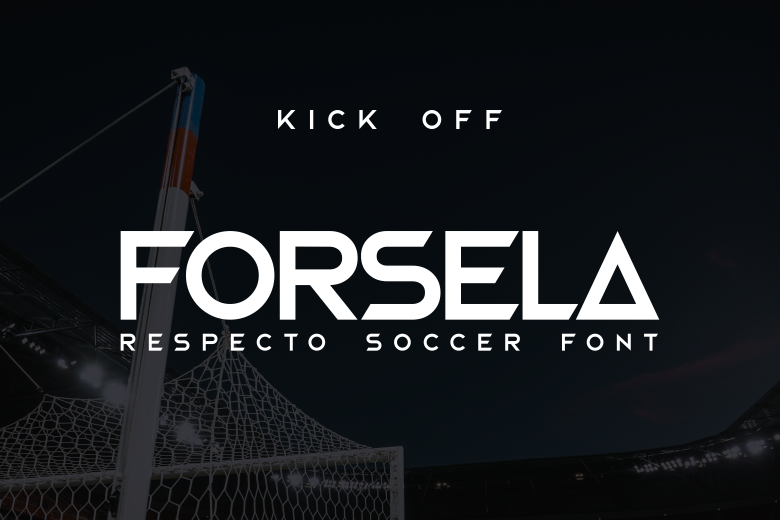
Forsela Rescpecto Font
Forsela Rescpecto is a font related to Football, the characteristic of its shape which is often used in events related to sports. Its techno form can also be used in many ways, such as gadgets, speed, galaxy, and others.
Forsela Rescpecto Display Font